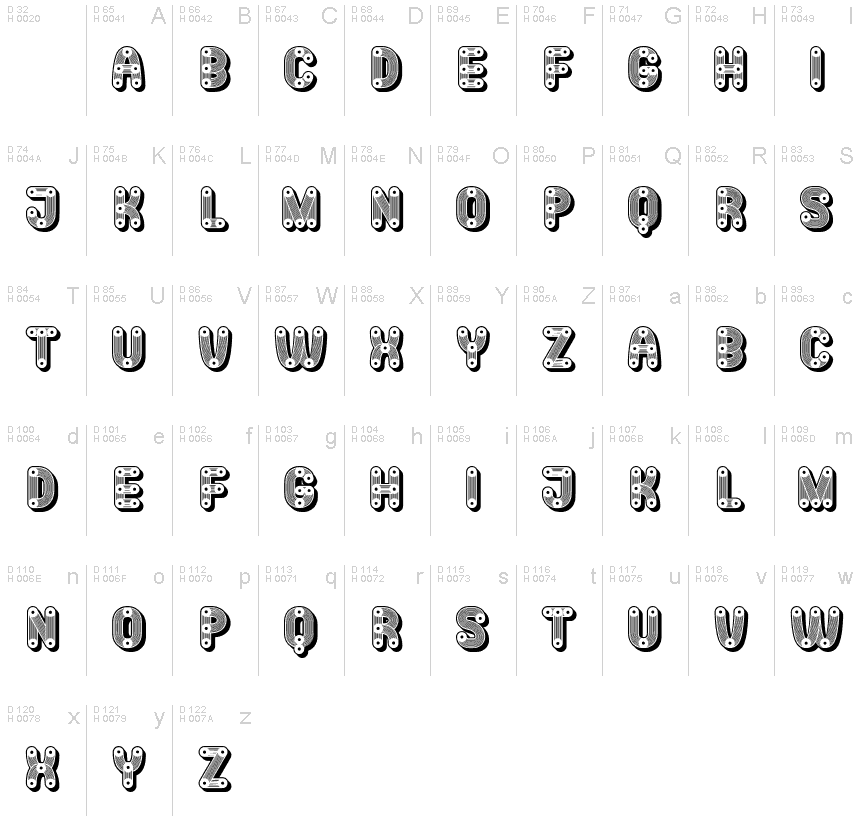
Mangalica Hollow Regular
Mangalica Hollow is a bold and decorative display font designed by Vladimir Nikolic. With its unique style and hollow design, this font is perfect for projects that require an attention-grabbing and creative touch. Its bold weight adds emphasis and makes it suitable for headlines, logos, posters, and packaging designs. Whether you're working on a contemporary art exhibition or a trendy fashion brand, Mangalica Hollow will bring an artistic flair to your project. Stand out from the crowd and make a statement with this visually stunning font typeface.